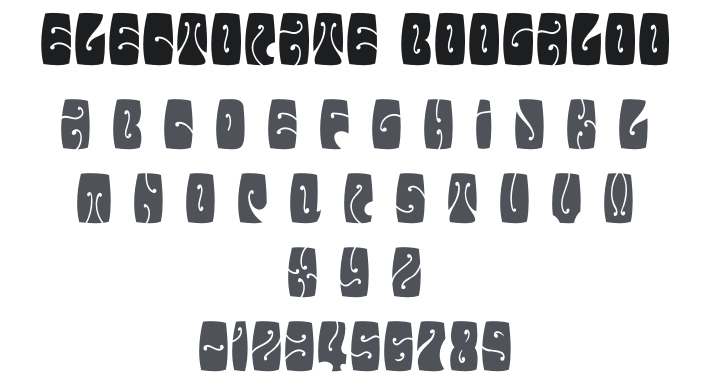
Electorate Boogaloo Font
About Electorate Boogaloo
Electorate Boogaloo is a bold, groovy psychedelic display typeface where each letter is enclosed in a rounded square, giving it a chunky, block-like retro charm straight out of 1960s counterculture. Its trippy, flower-power personality radiates peace-and-love nostalgia. Perfect for concert posters, retro branding, festival flyers, album covers, and any design channeling the free-spirited energy of the psychedelic era.